Meditera
Meditera introduces a condensed sans serif typeface designed for commanding presence and professional elegance. Its streamlined form combines efficiency with sophistication, making it an ideal choice for corporate and professional applications. With its low contrast design, Meditera exudes a sense of power…
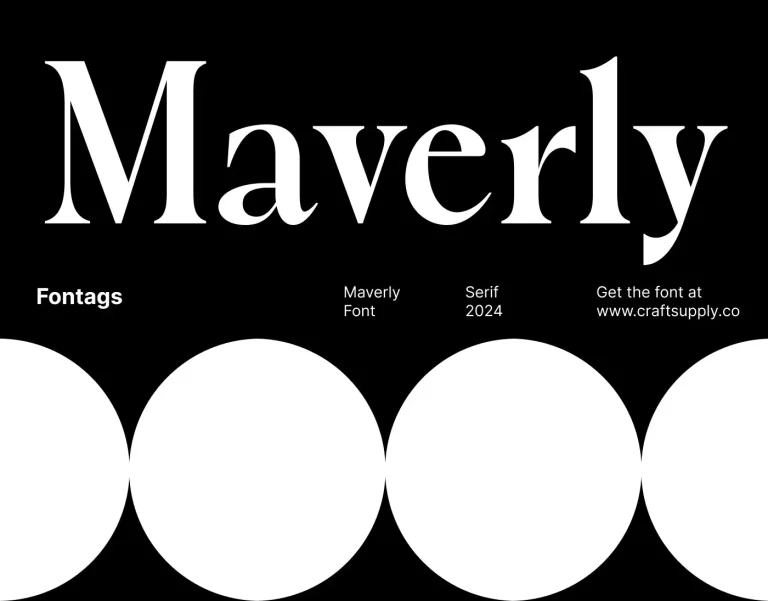
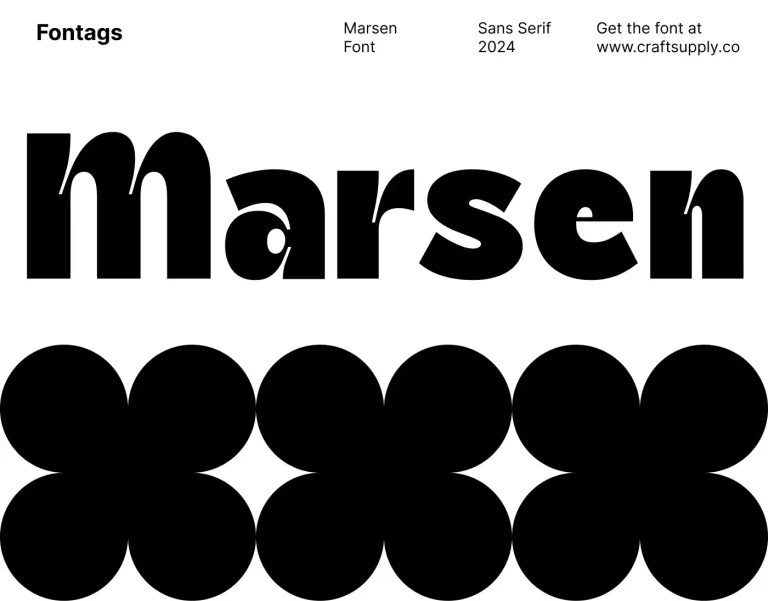Maverly
Maverly is a serif typeface characterized by its high contrast between thick and thin strokes. This distinctive feature adds dynamism and elegance to the font, making it stand out in any design project. With its diagonal axis, Mavserly introduces a modern twist…
Marsen
Marsen is a sans serif bold font featuring charming inktrap details, adding a delightful touch to its bold appearance. This unique combination infuses the font with a sense of playfulness and character, making it stand out in any design. With its inktrap…
Maretyn
Maretyn presents a contemporary take on the timeless sans serif typeface, blending modern simplicity with classic functionality. Its clean lines and balanced proportions make it suitable for both text and display purposes, ensuring readability and style across various design projects.
Mareday
Mareday – Inktrap Font is a display sans serif font featuring inktrap details for added character and charm. It combines the clean, modern look of a sans serif with the intricate details of inktrap, resulting in a font that stands out in…
Lunavie
Lunavie – Bold Serif features a bold weight with moderate contrast serif, striking a balance between boldness and readability. Combining bold weight with moderate contrast ensures readability without compromising on visual impact. This unique combination makes Lunavie perfect for grabbing attention while…
Lucilo
Lucilo – Art Nouveau Font draws inspiration from the beauty serif and intricacy of the Art Nouveau movement. With graceful curves and intricate details reminiscent of this timeless artistic style, Lucilo captures its essence with finesse. Experience the captivating beauty and timeless…
Glazio
Glazio – Cute Bold Font features a bold yet playful design, perfect for both professional and child-friendly projects. With This Cute Bold Font, professionalism seamlessly merges with playfulness, creating a font that appeals to all ages. Infuse your designs with…
Gevaline
Gevaline – Aesthetic Font boasts a modern sans serif high contrast design, creating visual interest and striking elegance. It merges modernity with feminine strokes, embodying minimalist beauty with each character. With its clean lines and subtle curves, Gevaline radiates minimalist beauty, adding…
Thanom
In a world where the future collides with tradition, Thanom – Display Typeface emerges as a symbol of innovation and style. Inspired by the sleek lines of tomorrow and the mystique of gothic architecture, this font brings a unique blend of modernity…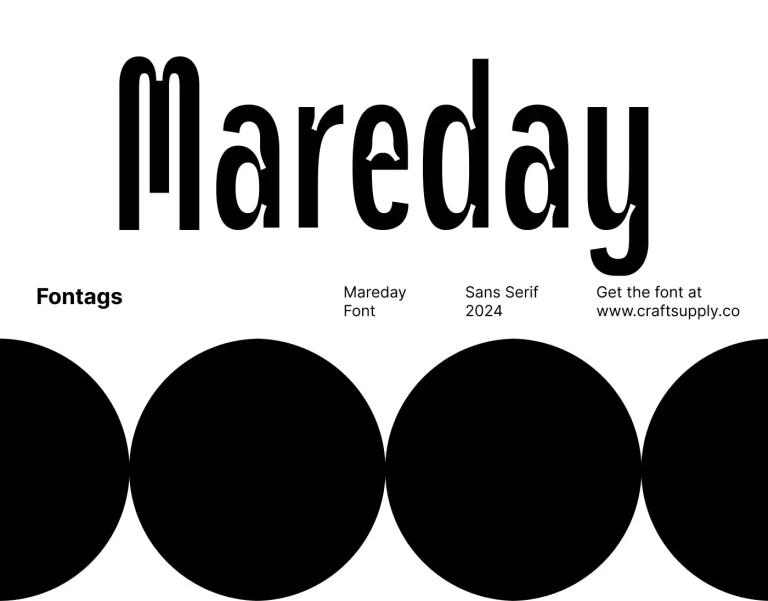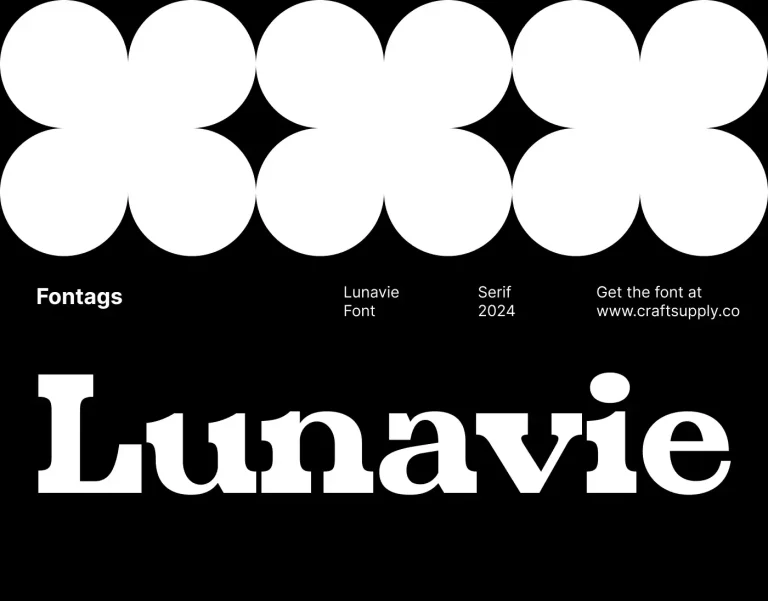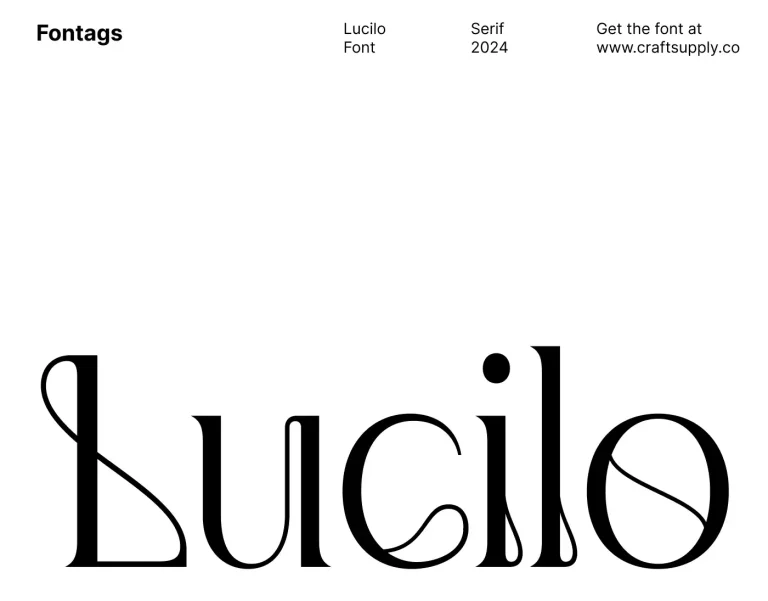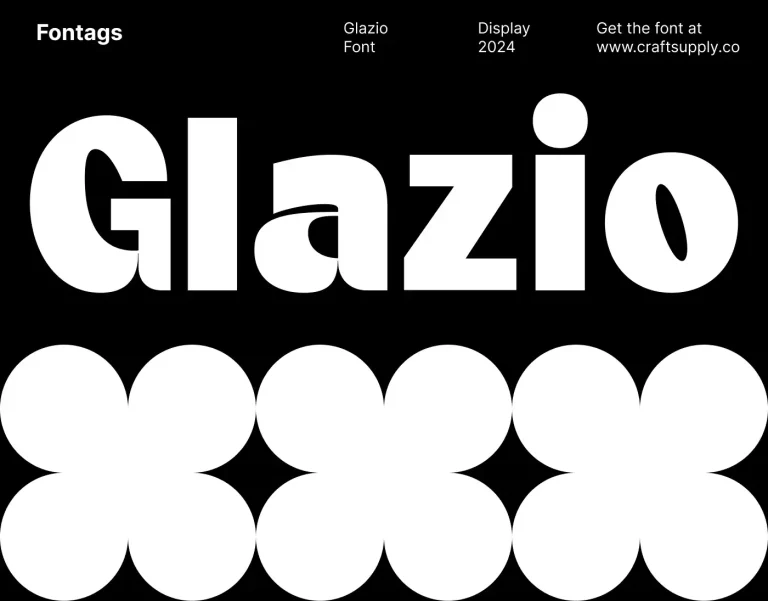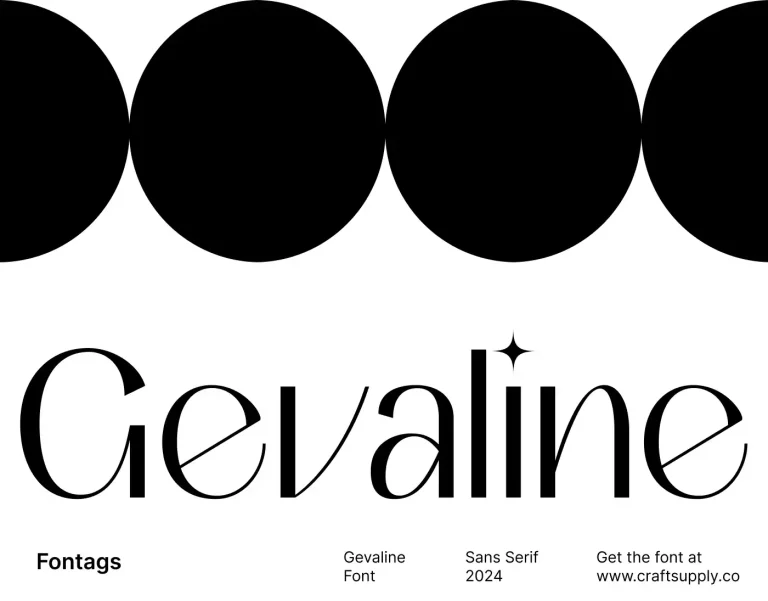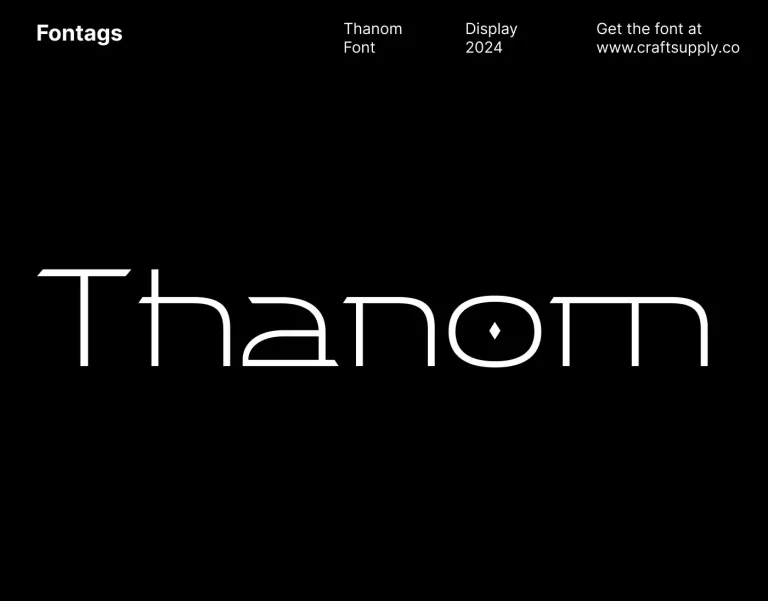